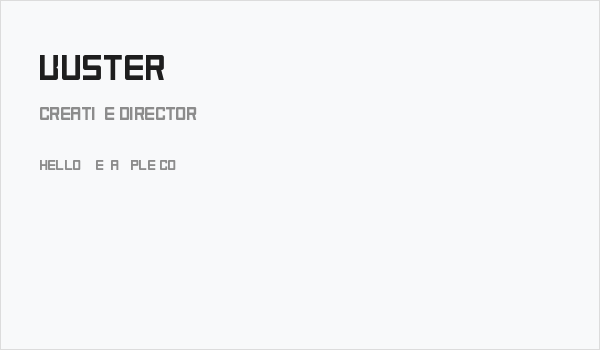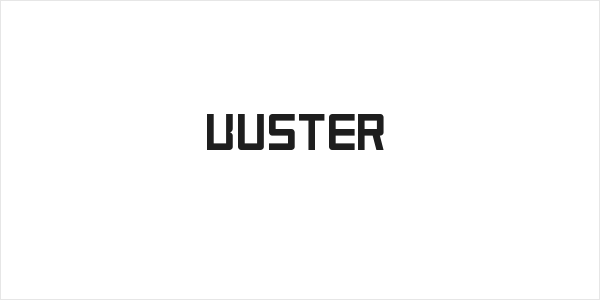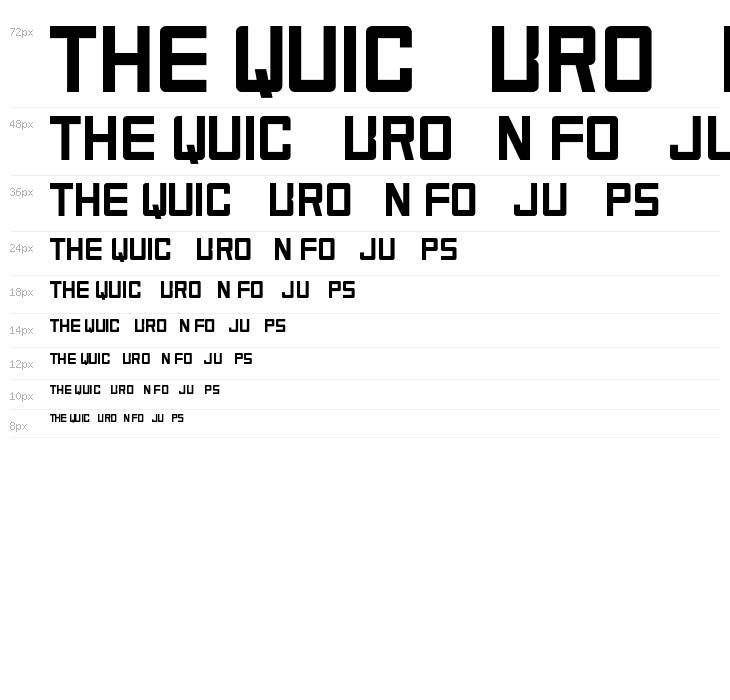
Buster Font
Buster Description
This font features a bold, geometric design with a strong presence. The characters are constructed with uniform stroke widths, giving them a sturdy and modern appearance. The squared-off edges and consistent line thickness contribute to a clean and structured look. The font is highly legible, making it suitable for various display purposes. Its uniformity and simplicity make it versatile for both digital and print media. The uppercase letters are particularly striking, with a blocky, robust form that commands attention.
| Proposed Projects | Ideal for branding, headlines, posters, and signage where a modern and strong visual impact is desired. |